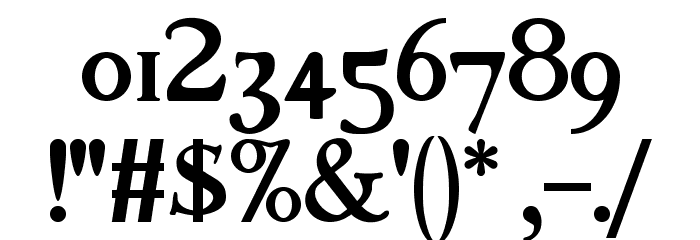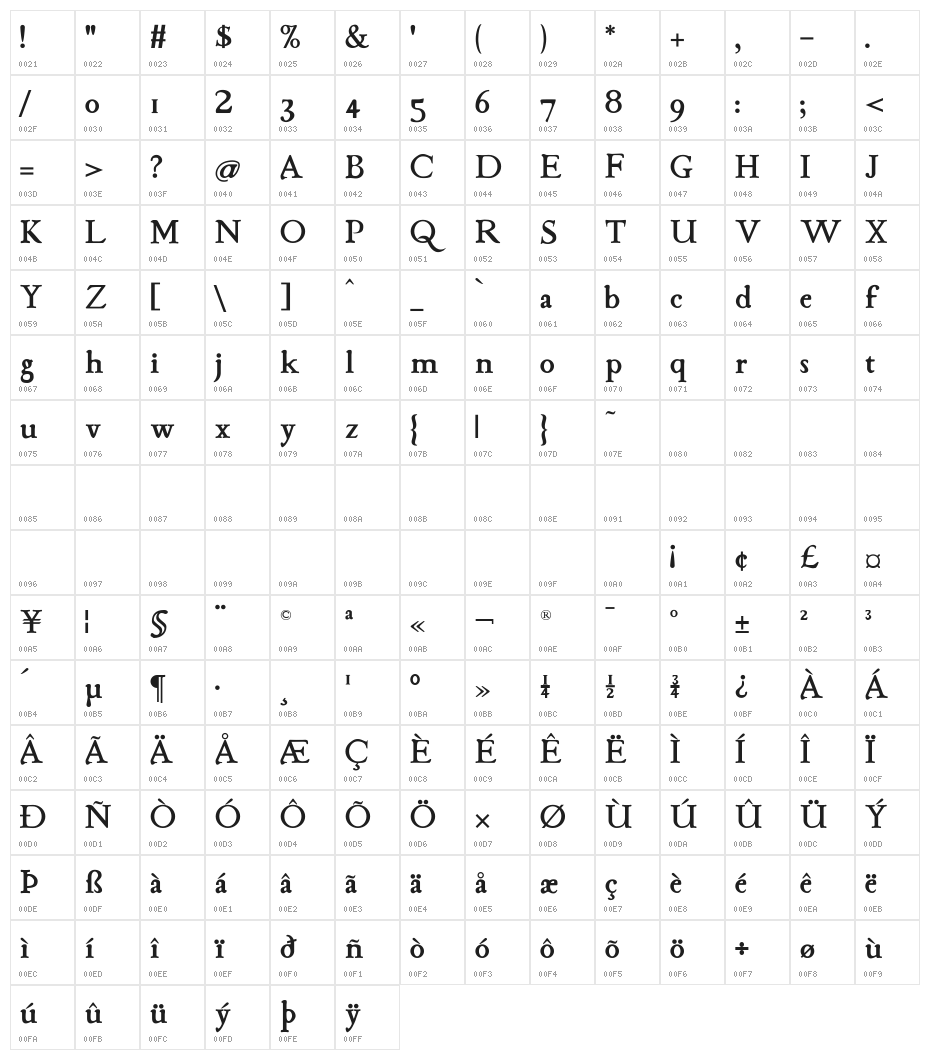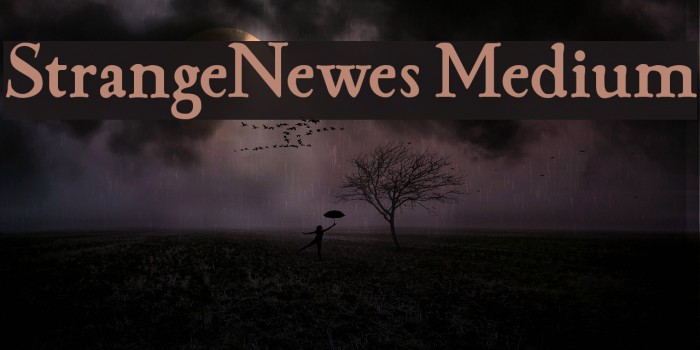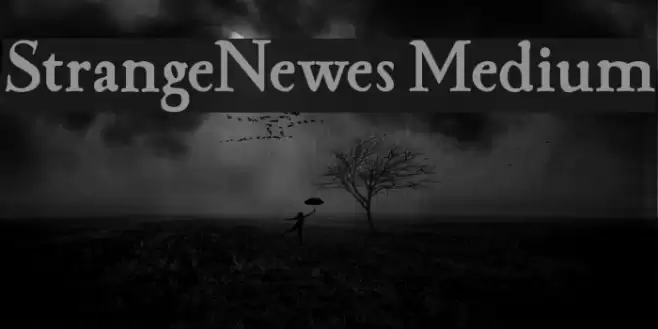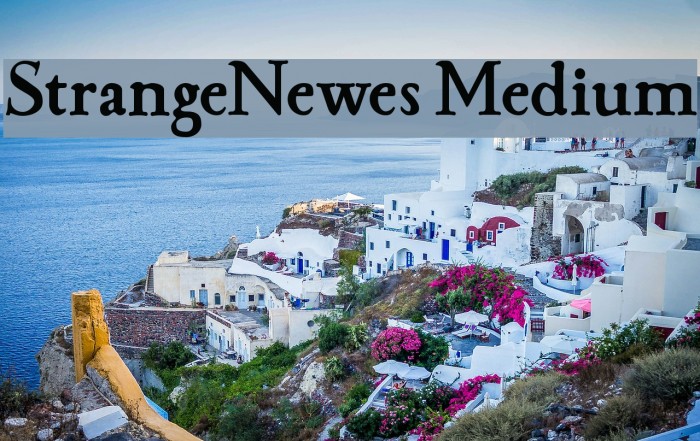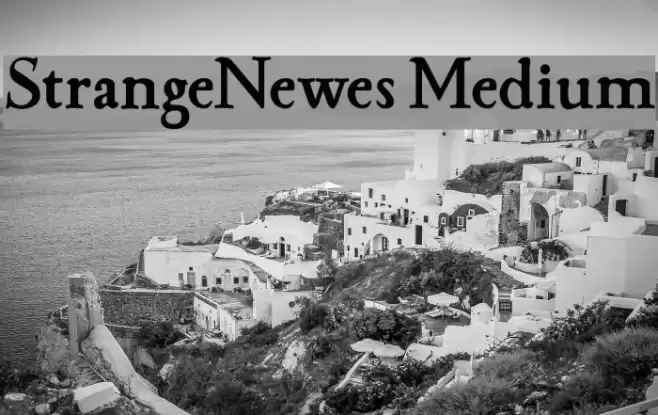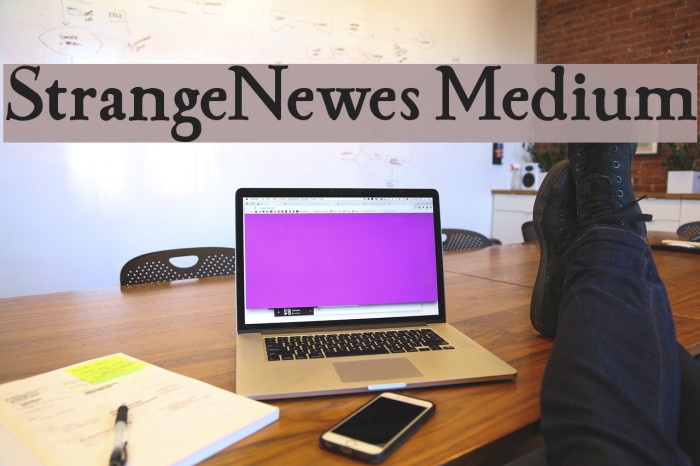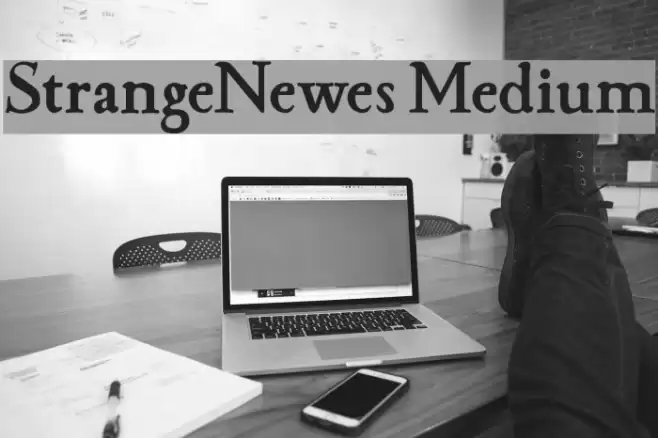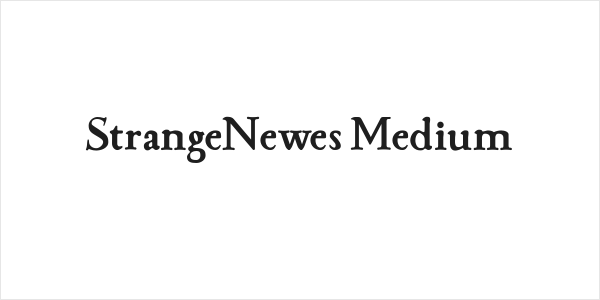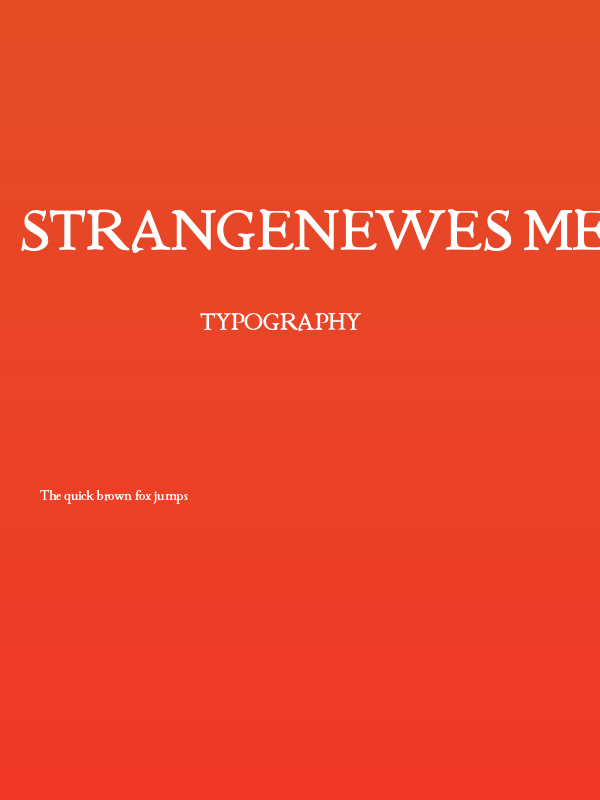
StrangeNewes Medium Font
StrangeNewes Medium Description
This font features a classic serif style with a touch of elegance and sophistication. The characters have a traditional serif structure, with slightly flared strokes that add a sense of movement and grace. The uppercase letters are bold and commanding, while the lowercase letters maintain a balanced and harmonious appearance. The numerals are distinct and easy to read, with a consistent style that matches the overall aesthetic. Special characters are well-integrated, providing versatility for various design needs. The font's design is reminiscent of historical typefaces, yet it maintains a modern appeal, making it suitable for both traditional and contemporary projects.
Overall StyleClassic
Use CaseHeadlines, Body text, Logos
Proposed ProjectsIdeal for book covers, editorial design, branding, and formal invitations.